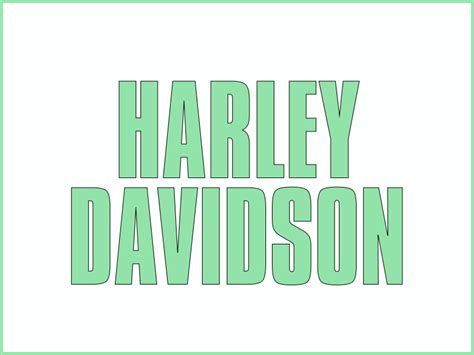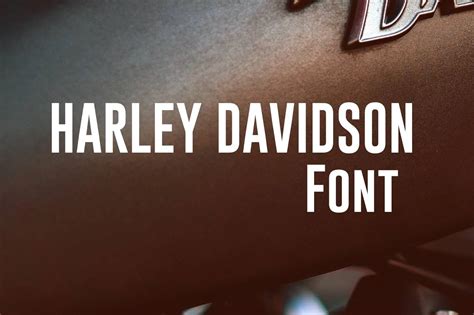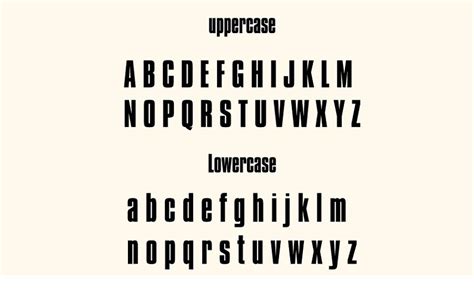
HARLEY DAVIDSON FONT
The Fascinating Typography Of Harley Davidson: Exploring The Iconic ...
The world of typography and design often intersects with iconic brands, and one such intersection is the creation of a font inspired by the legendary Harley-Davidson brand. This introduction aims to explore the concept of a Harley-Davidson font, delving into its unique characteristics and the potential impact it could have on the design landscape.
The Harley-Davidson font is not merely a collection of letters; it is a visual representation of the brand's rich history and iconic status. This font is designed to capture the essence of Harley-Davidson's rugged, rebellious, and timeless appeal. By incorporating elements that reflect the brand's identity, such as its distinctive logo, engine sounds, or even the raw materials used in its motorcycles, the font can become a powerful tool for designers and enthusiasts alike.
One of the key benefits of a Harley-Davidson font is its ability to evoke a sense of nostalgia and authenticity. Typography enthusiasts and designers can create unique and memorable designs by utilizing this font, especially in branding, advertising, or even in the creation of merchandise. The font's unique style can help establish a strong visual connection between the brand and its audience, fostering a sense of community and loyalty.
In the following sections, we will explore the various aspects of this font, including its design principles, potential applications, and the impact it could have on the design industry. By understanding the intricacies of the Harley-Davidson font, we can appreciate how a simple collection of letters can become a powerful symbol, representing not just a brand but also a way of life.